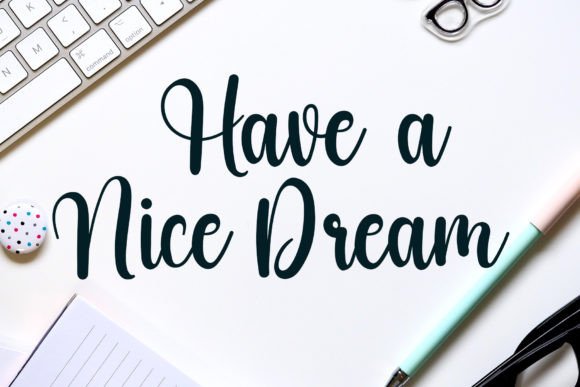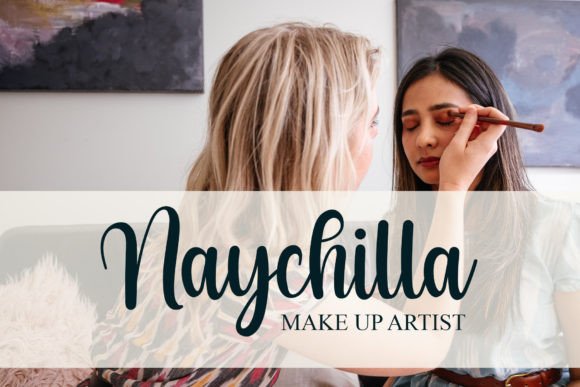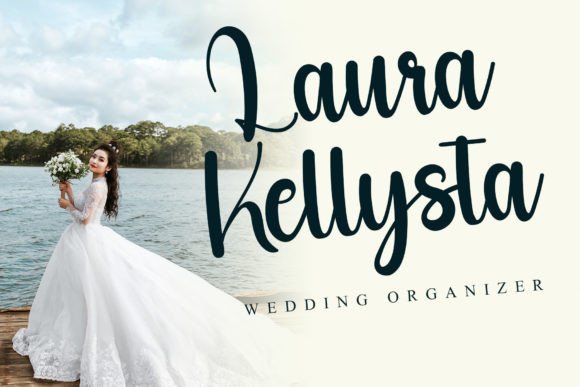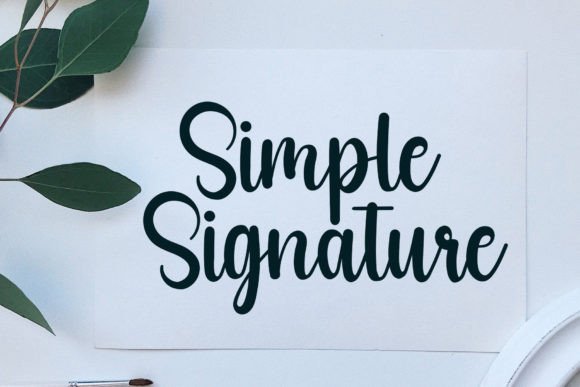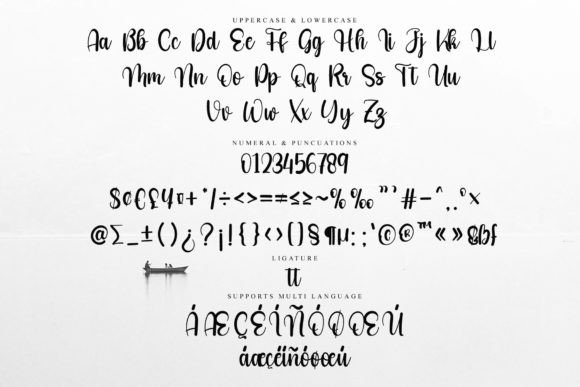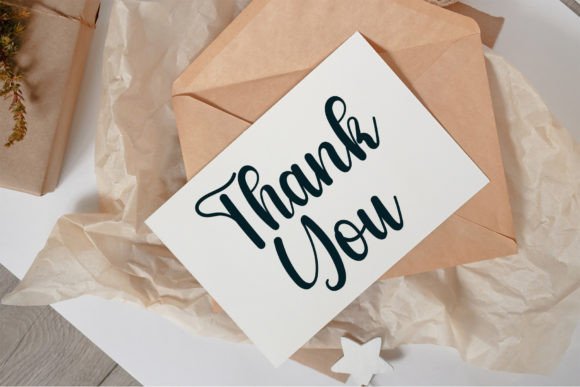
Unlock the Power of Elegant Typography with Hardwork Font
Have you ever spent hours pouring over a design, tweaking every detail until it feels just right? That’s a feeling we all know and love, and it’s exactly what Hardwork Font is designed to evoke. This stunning handwritten font combines the timeless charm of classic calligraphy with a modern, contemporary flair that’s sure to elevate your projects to the next level.
Hardwork Font is more than just a pretty face – it’s a powerful tool for designers who want to add a touch of sophistication and personality to their work. With its balanced and varied style, this font is perfect for everything from branding and marketing materials to digital products and print publications. Whether you’re a seasoned pro or just starting out, Hardwork Font is a valuable addition to any designer’s toolkit.
Key Features of Hardwork Font
- Unique Characteristics: Hardwork Font features a distinctive, bold design with a modern twist, making it perfect for headings, titles, and other attention-grabbing text.
- Font Style: The font comes in two styles: Regular and Bold, allowing users to choose the perfect weight for their design needs.
Hardwork Font Review
As a designer, I was excited to try out the Hardwork Font. Overall, I found it to be a solid choice for many projects. ✨ One of the things that works well is its versatility – it can be used for a wide range of applications, from headings to body text. The font also has a clean and modern feel to it, making it perfect for contemporary designs.
- ✨ High legibility: The font is easy to read, even at smaller sizes.
- ✨ Wide compatibility: The font works well across various devices and operating systems.
- ✨ Customizable: The font offers a range of styles and weights, allowing for flexibility in design.
However, there are some limitations to consider. ⚠️ One of the main drawbacks is that the font can feel a bit generic at times. It may not stand out in a crowded design landscape. Additionally, some users may find the font to be a bit too minimalist, which can make it difficult to convey certain emotions or tones.
Overall, I would recommend the Hardwork Font for projects that require a clean and modern aesthetic. While it may not be the most exciting choice, it’s a reliable option that gets the job done. With some creative usage and attention to detail, you can create designs that truly shine.
Tips for Getting the Most Out of “Hardwork Font”
Use “Hardwork Font” to create a professional and modern look for your designs. Experiment with different font sizes and colors to create visual hierarchy and emphasis. Use it for headings, titles, and other important text elements.
“Hardwork Font” is perfect for creating motivational posters, business cards, and other materials that require a strong and confident visual identity. It’s also great for designers who want to add a touch of professionalism to their designs.